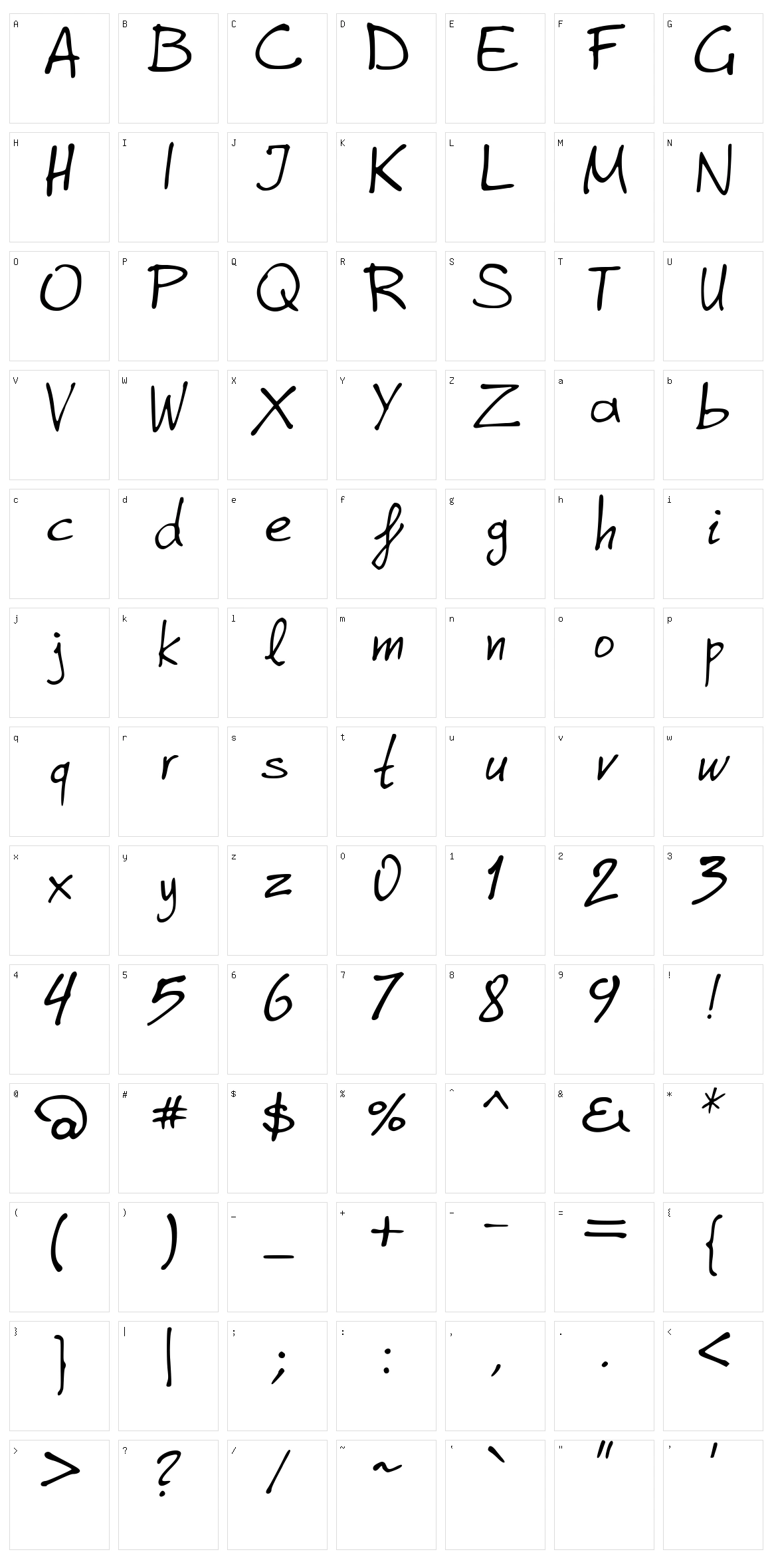
The free font Graphe Alpha is carefully designed by Heracles Papatheodorou, showcasing a thoughtful balance of creativity and usability and falls under the Script font style. When you download the ZIP file, it contains only 38 KB of font files, making it lightweight and quick to download. Please review the license details below to understand permitted usage and distribution rights. If license information is not available, we recommend using this font for personal projects only or contacting the author directly for commercial usage permissions.